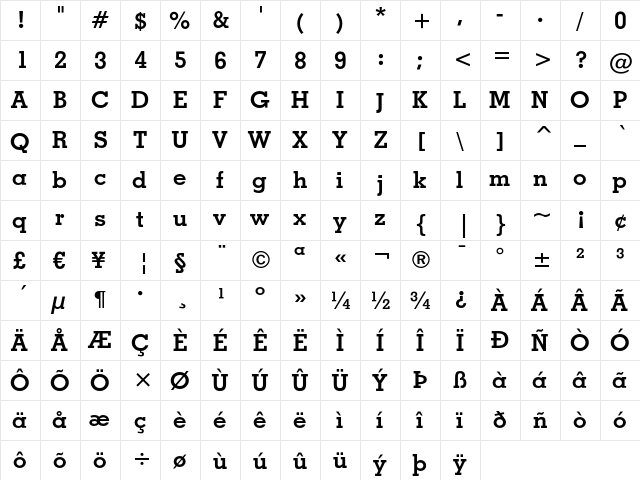
Geometric Slabserif 703 Bold
Design Context for Geometric Slabserif 703 Typeface
Geometric Slabserif 703 features prominent, blocky serifs that give it a confident, grounded presence — equally at home in editorial settings and bold branding work. The heavy weight commands attention and anchors typographic hierarchies.
Suited to magazines, political campaign materials, bold packaging, and any setting where authority matters.
Pro Tip: Use Geometric Slabserif 703 for headlines and subheadings where its slab serifs can make an impression. It also holds up well in mid-size body copy thanks to its sturdy construction.